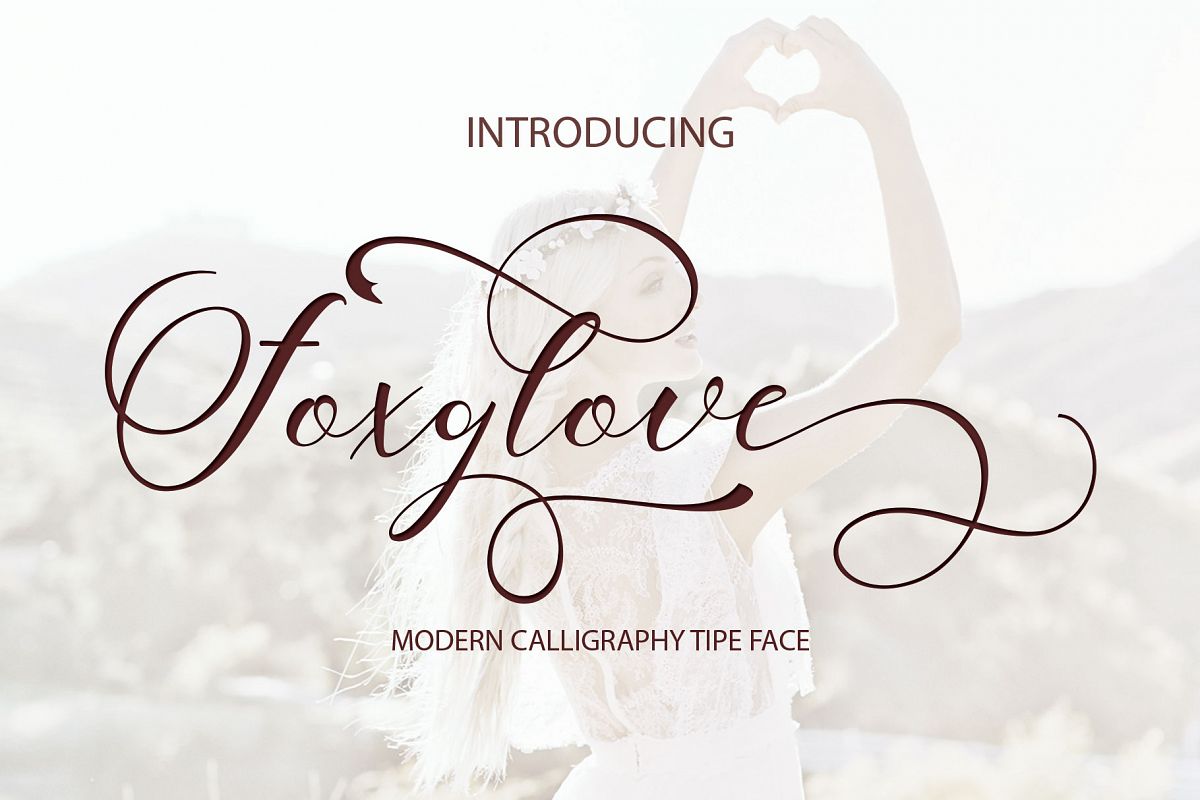
Foxglove Script
Foxglove script:
is a new modern variant of calligraphy from handmade text types. present for you to complete your script font collection.
And if you are looking to add a touch of elegance to your current project do not miss this one, namely Foxglove Script.You'll get yourself a remarkable collection of modern script font, each featuring many OpenType features and multiple languages. Beautiful, modern and made by hand, this magnificent collection are sure to give your toolbox typeface lift plump feasible.
Foxglove Script : A script that is so beautiful with gorgeous grounds, and furnished with fine lines are perfect for use for many purposes. such as title, signature, logo, correspondence, wedding invitations, letterhead, signage, labels, newsletters, posters, badges, Branding, Greeting Cards, etc. It comes with a handy set of Open Type, Stylistic Alternates, stylistic sets, ligatures and swashes and all to add an authentic touch to your design.